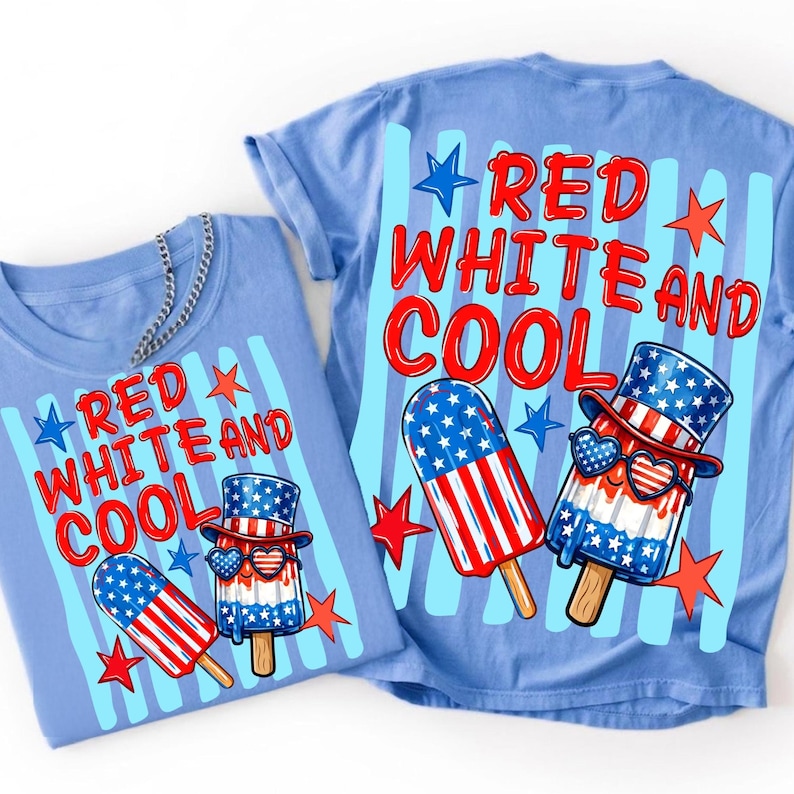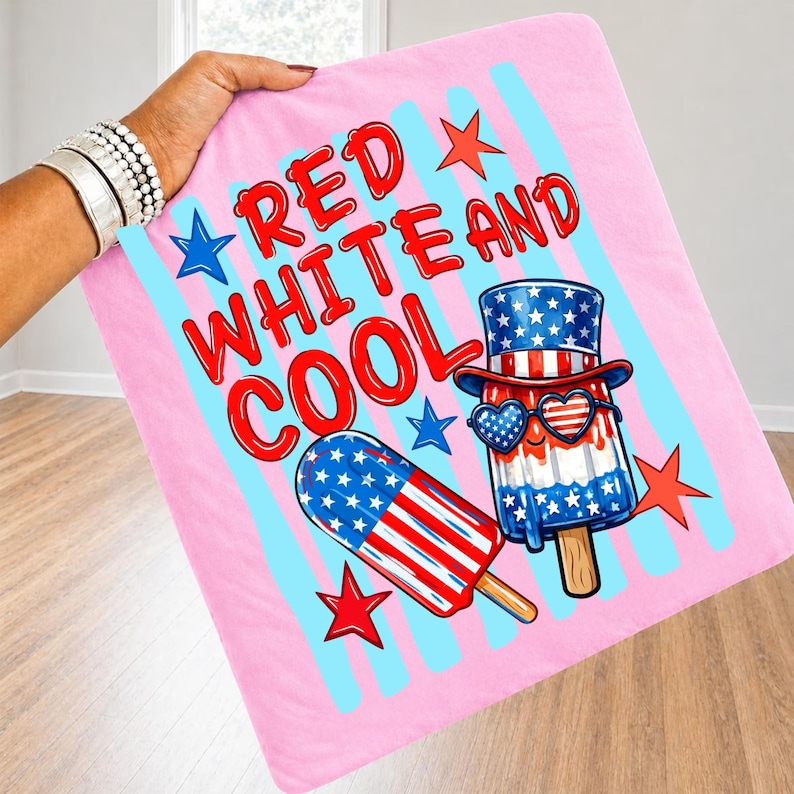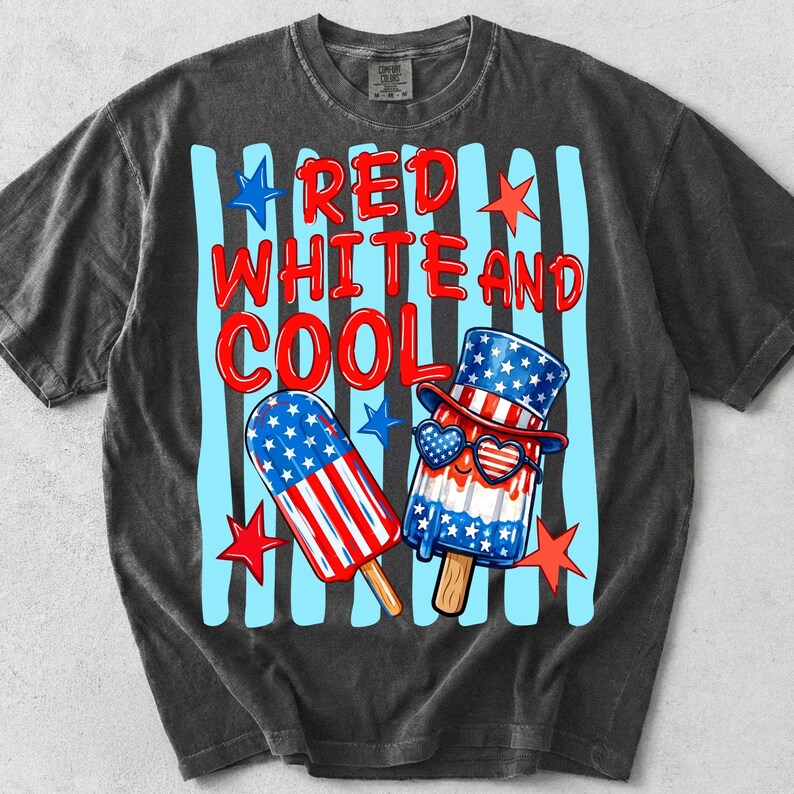
Unleash Your Patriotism: The Ultimate Red White and Cool PNG Font Bundle for 4th of July Crafts
As the summer sun shines brighter and the scent of barbecues fills the air, crafters everywhere begin to dream of their next patriotic project. The Fourth of July is more than just a holiday; it’s a vibrant celebration of freedom, family, and fun. If you’re looking to infuse your Independence Day creations with a unique blend of retro charm and bold American spirit, look no further. The Red White and Cool PNG Font Bundle is here to revolutionize your crafting game, offering an energetic, Western patriotic theme that’s perfect for everything from custom apparel to festive home decor.
This isn’t just a font; it’s a design experience, meticulously crafted to help you express your “Red White and Cool” traditions with flair. Whether you’re a seasoned sublimation artist, a DTF printing enthusiast, or a DIY crafter, this bundle provides the high-quality assets you need to make your designs pop.
Crafting Your Independence Day Masterpiece: Features & Design
The true magic of the Red White and Cool PNG Font Bundle lies in its distinctive design features, perfectly blending a retro aesthetic with a vibrant, modern appeal. Imagine distressed Western textures meeting bold Red, White, and Blue colors, all brought together with high-quality patriotic typography. This bundle isn’t just about letters; it’s about telling a story with every design. You’ll receive a full A-Z letter set, complemented by matching 0-9 festive numbers, ensuring you have every character needed to bring your creative visions to life.
Who Can Benefit? Ideas for Your Red White and Cool Creations
The versatility of this 4th of July PNG Independence Day USA Sublimation bundle makes it an indispensable tool for a wide range of crafters and occasions. Are you planning a family reunion for the Fourth of July? Design custom “Red White and Cool Family Reunited Gear” that everyone will love. Creating festive school teacher totes or personalized mug designs for your favorite educators? This bundle adds that perfect touch of patriotic charm.
For the little patriots in your life, imagine crafting custom Fourth of July shirts for boys and girls that stand out from the crowd. The “Western Patriotic” style lends itself beautifully to playful and energetic apparel. Beyond clothing, think about holiday party invitations that capture the celebratory spirit or decorative banner crafts that transform your home into a festive haven. This bundle is ideal for anyone who loves Red White and Cool traditions and seeks to create unique, memorable items that embody the spirit of Independence Day.